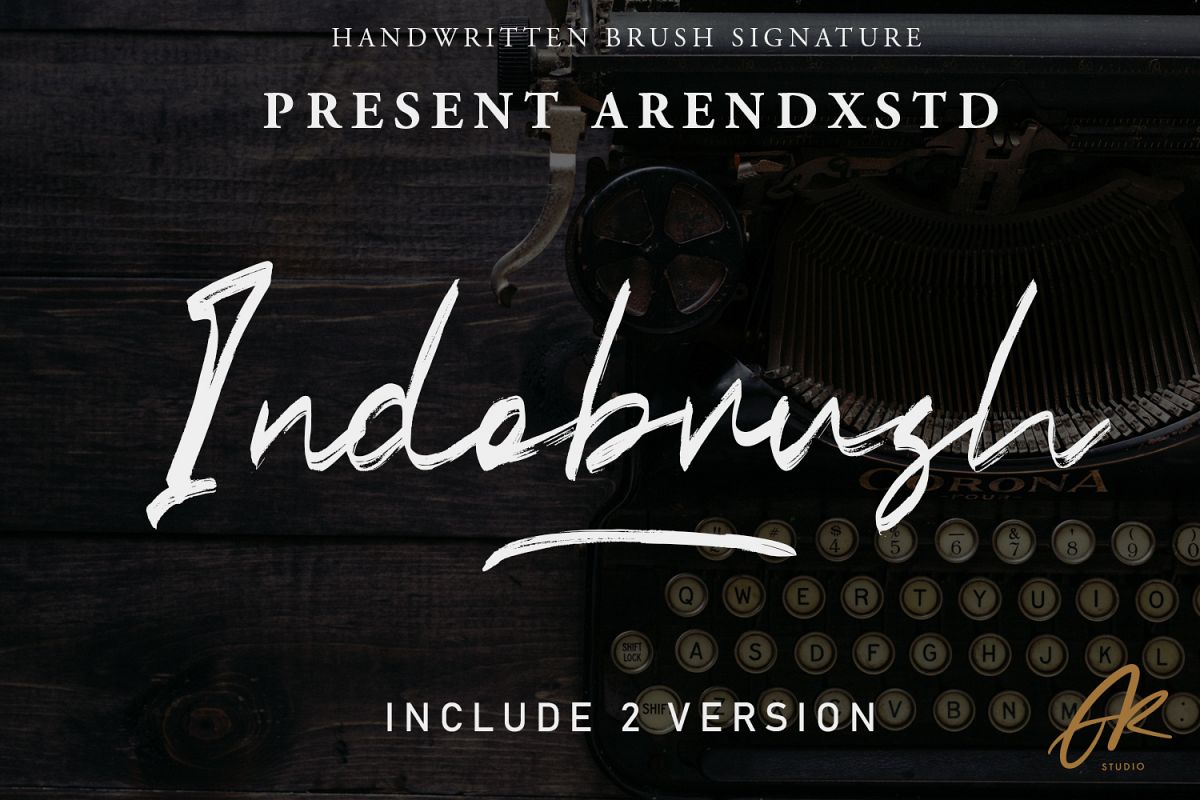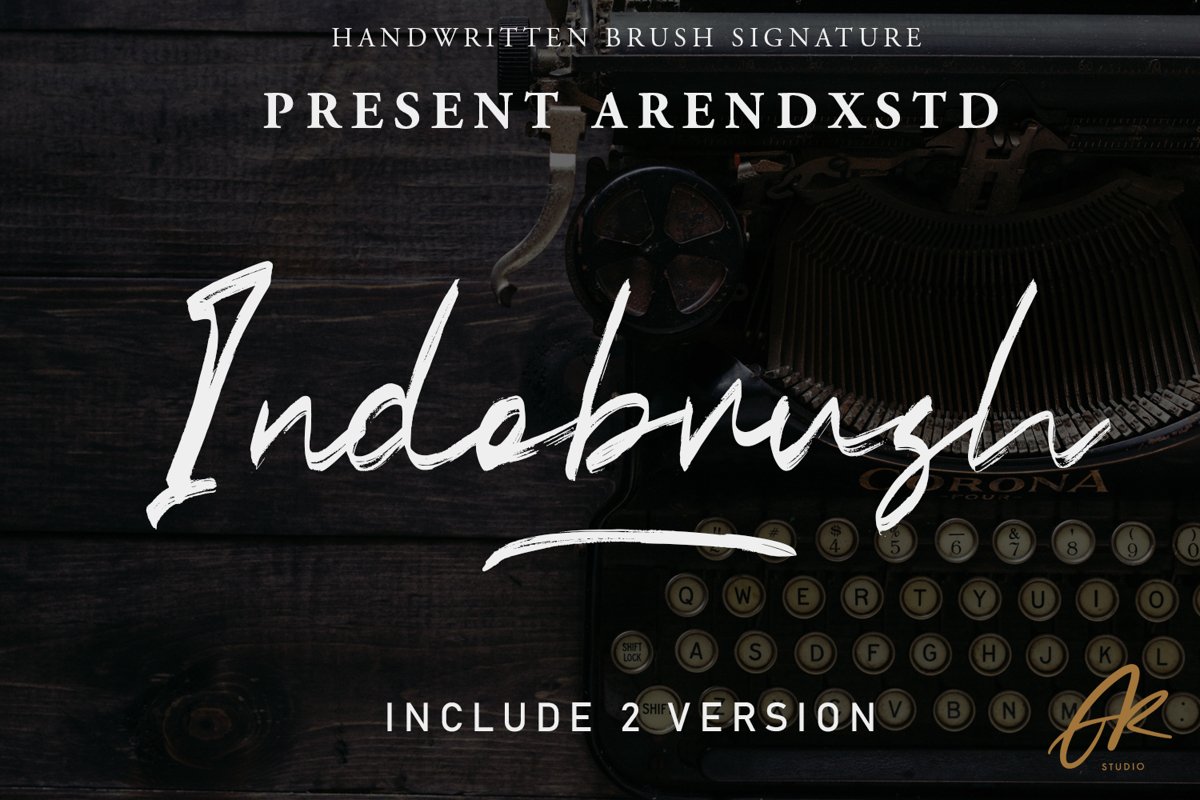
Indobrush Signature Brush
Indobrush Swashes
Indobrush
Indobrush Alternate
Indobrush is a script font with distinctive handwritten characters perfect for branding projects, logos, wedding designs, media posts, advertisements, product packaging, product designs, labels, photography, watermarks, invitations, stationery, and any project which needs a handwritten feel.
• Ligature • Alternate
• Swash